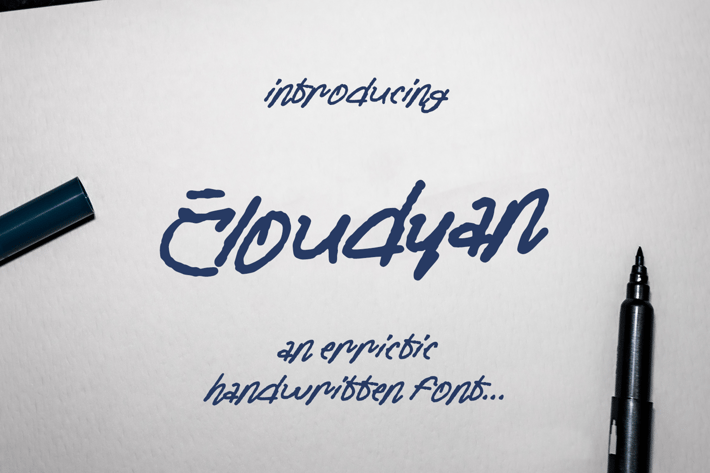
Cloudyan Handwritten Script Font
Cloudyan Handwritten Script Font, is our new font and suitable for mockup or any work.
Great for
Sticker, Invitation Card, Brochure, etc.